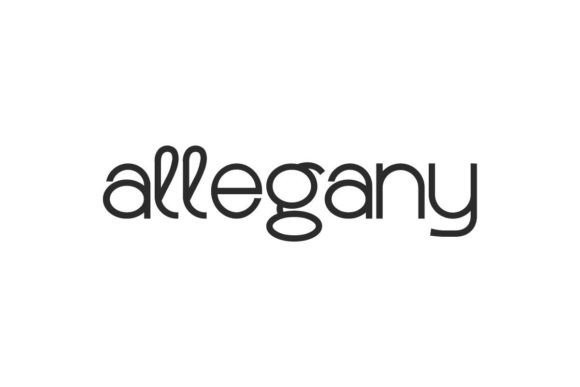
Allegany Font
Step into a world where design reigns supreme, where typography transforms your creations into captivating masterpieces. Allegany, a visionary sans serif font, embodies the essence of modern elegance and minimalist sophistication, crafted by the visionary artisans at NihStudio.
Imagine your designs adorned with the timeless beauty of Allegany, a font that whispers luxury and exudes a touch of contemporary flair. Its clean lines and subtle curves dance harmoniously, creating an aura of effortless grace that will elevate your designs to new heights.
Prepare to be mesmerized as Allegany graces the covers of vogue magazines, its presence commanding attention and captivating readers with its undeniable allure. This font is the epitome of style and sophistication, a true gem for those seeking to make an unforgettable impression.
Allegany is a versatile chameleon, seamlessly adapting to a multitude of design endeavors, whether it's alluring book covers, captivating social media posts, or enchanting invitations. Its understated elegance empowers you to effortlessly convey your message with clarity and impact, leaving a lasting impression on your audience.
Embrace the transformative power of Allegany, a font that will ignite your creativity and unlock a world of design possibilities. Its timeless appeal and modern sensibility will effortlessly elevate your designs, making them shine brighter than ever before.